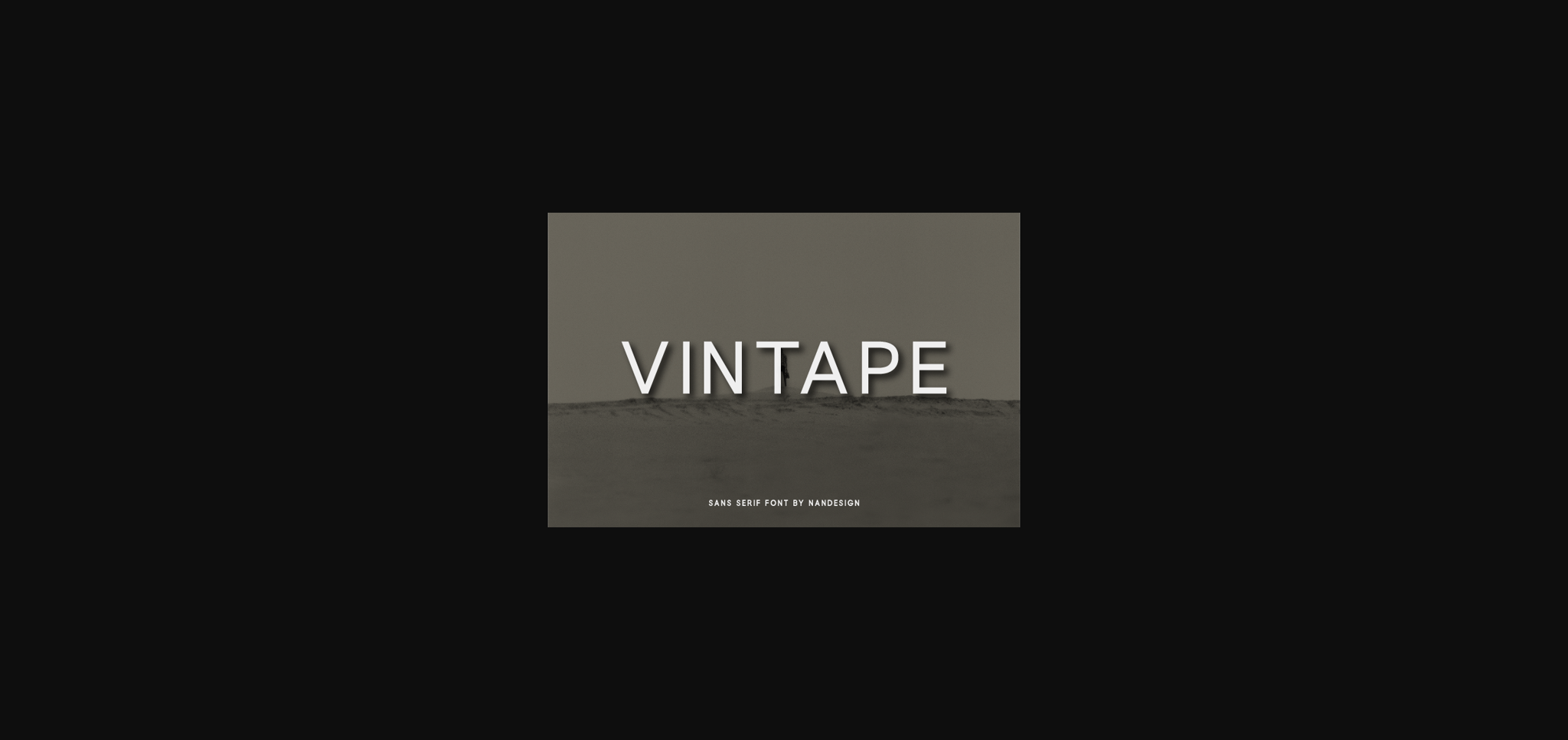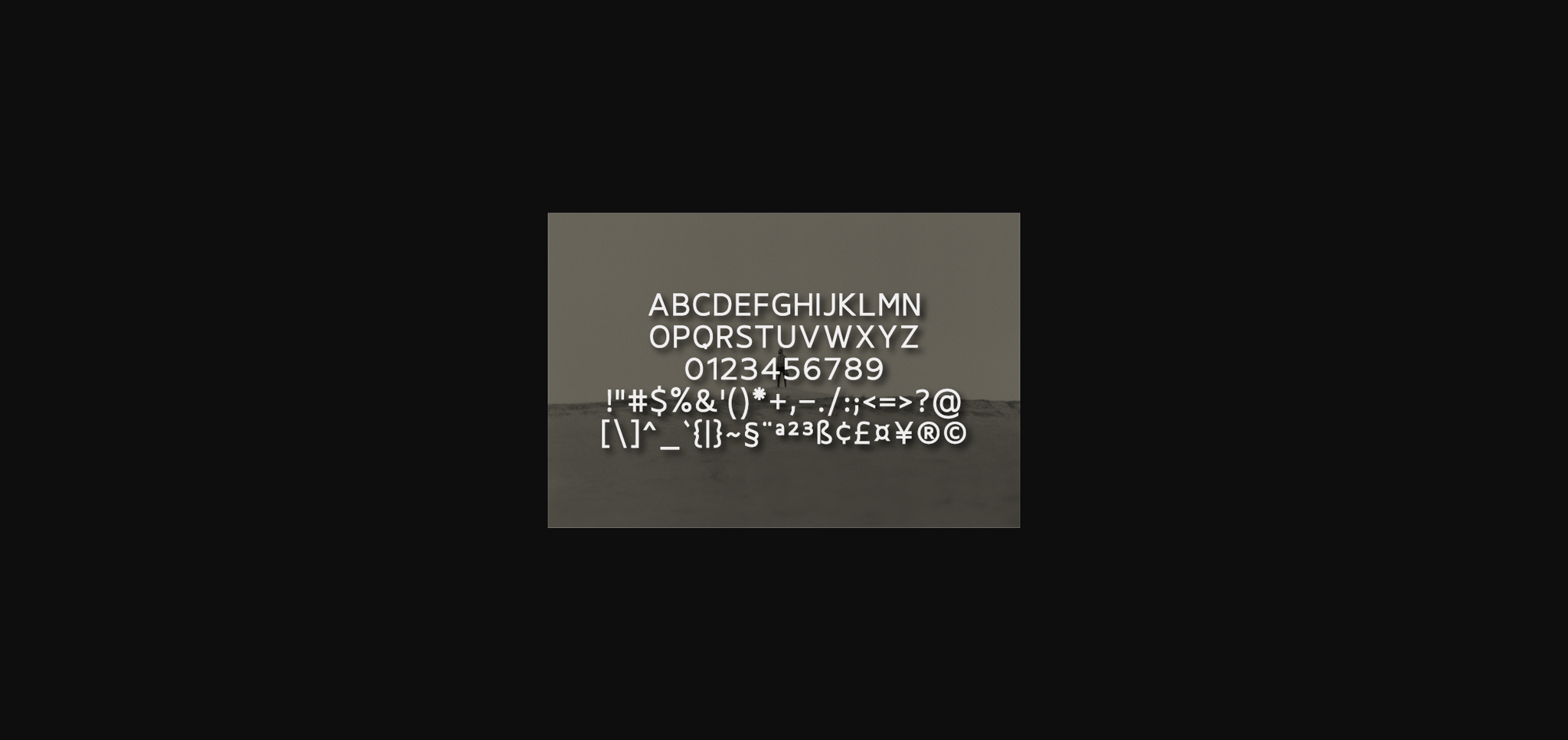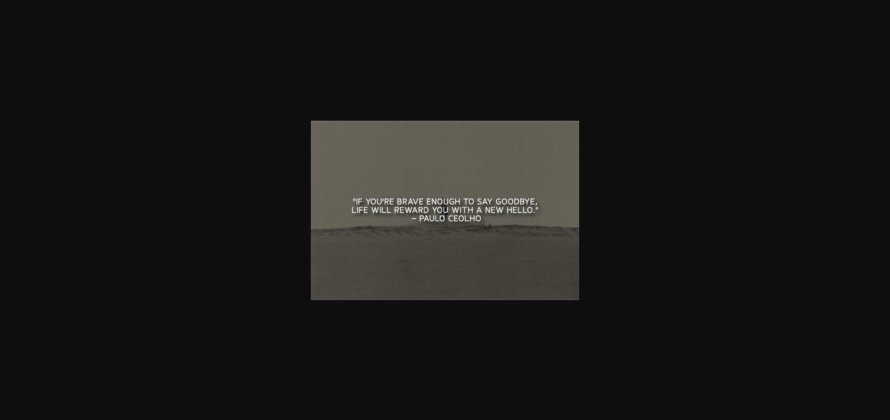
HomeSans Serif FontsVintape Font Sans Serif Fonts Vintape Font FacebookXPinterestWhatsApp 1 of 5 ... Vintape Font Poster 2... Vintape Font Poster 3... Vintape Font Poster 4... Vintape Font Poster 5... About Vintape Font Vintape is a minimal and neat sans serif font. It can easily be matched to an incredibly large set of projects, so add it to your creative ideas and notice how it makes them stand out! DOWNLOAD NOW People also explored Santa Ugul Font Kidding Font Enjoy Christmas Font The Achiever Font Heartly Font Almerita Font Yulinda Font Maya Font Coffeelatte Font 327 0 TagsVintapeVintape Font Previous articleWale Vintage FontNext articleWolevine Font LEAVE A REPLY Cancel reply Comment: Please enter your comment! Name:* Please enter your name here Email:* You have entered an incorrect email address! Please enter your email address here Website: Save my name, email, and website in this browser for the next time I comment. Personal Use Free Anjhay Personal Use Free Read more about this font I Am Exceptional Personal Use Free Read more about this font Knox Personal Use Free Read more about this font Soulties Personal Use Free Read more about this font BLOG Fonts That Capture the Spirit of New York City New York City is more than just a place—it’s an experience, a rhythm, a visual language... Using Fonts in Digital Marketing: Tips to Strengthen Your Brand Identity Exploring Font Trends The 10 Best Handwriting Fonts to Add Personality to Your Designs